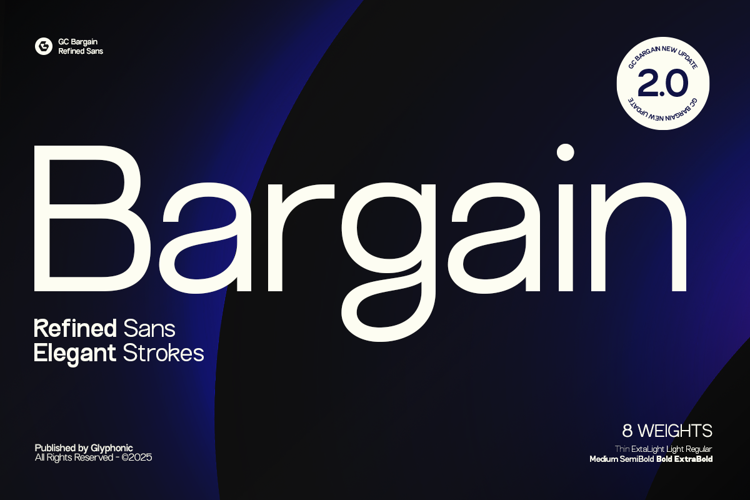
GC Bargain Font
GC Bargain is an expanded sans-serif typeface family that combines modern simplicity with functional clarity. Upgraded from its original version, GC Bargain now comes as a complete family with multiple weights and styles, offering even greater flexibility for your design projects.Built for versatility and readability, it’s perfectly suited for headlines, branding, logos, packaging, editorial layouts, and digital interfaces—crafted to deliver a clean and confident visual message across all media.